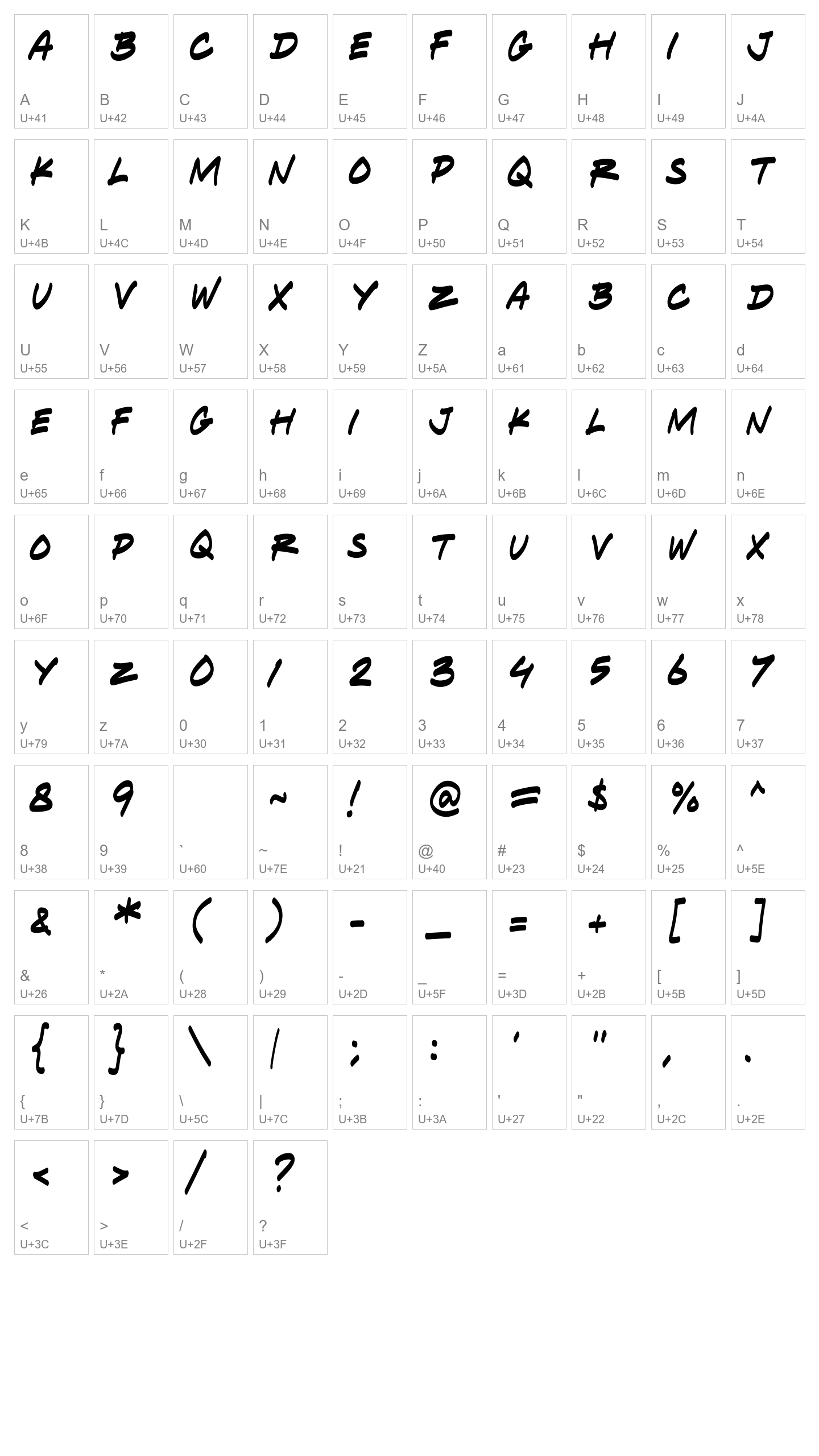
Ok Noted
Emphasizing the beauty of handwritten aesthetics, Ok Noted adds a personal touch to any design. The carefully crafted strokes and fluid curves evoke a sense of elegance and grace, making each letter a work of art.